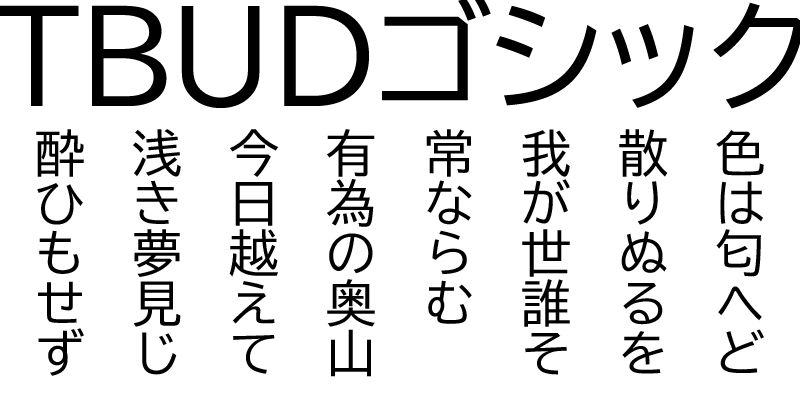
TBUDGothic Std Font Free Download is a modern Japanese Gothic (sans-serif) typeface known for its clean lines, balanced structure, and high legibility. Designed for clarity and flexibility, this font is ideal for a wide range of applications including digital interfaces, signage, educational materials, editorial layouts, and bilingual communication.
TBUDGothic Std Font Free Download offers a neutral yet contemporary appearance that makes it suitable for both body text and headlines. Its consistent stroke weight and well-proportioned characters ensure smooth readability, especially in layouts that require precision and visual balance.
This font works particularly well in multilingual settings when paired with Mincho-style typefaces, offering a professional and polished look across print and screen formats. Whether used in corporate documents, public information displays, or branding, TBUDGothic Std delivers simplicity with sophistication.